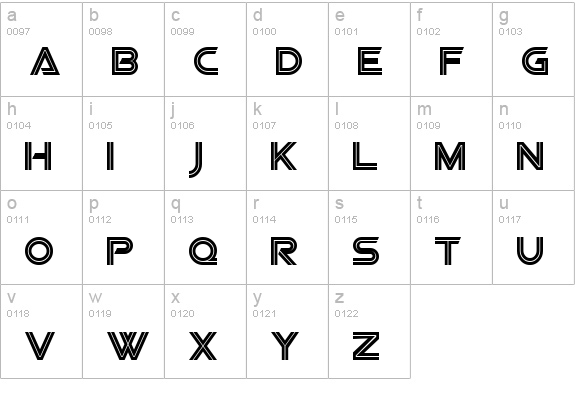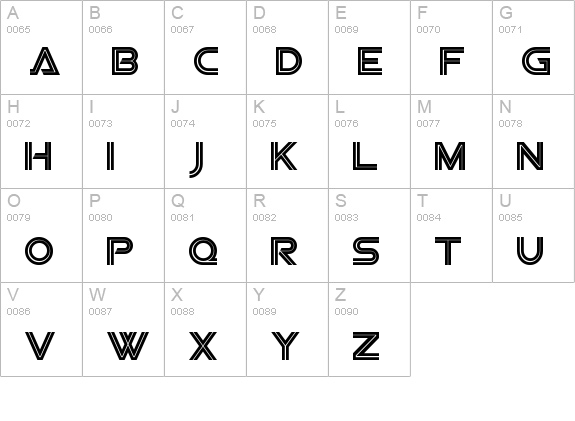
Viper Squadron Font Details
Introducing Viper Squadron, a captivating and bold font that is sure to make your designs stand out from the crowd. This versatile typeface embodies the spirit of adventurousness and strength, perfect for projects that require a touch of courage and daring. With its sharp edges and distinct letterforms, Viper Squadron exudes a sense of power and intensity. Its sleek and modern design effortlessly captures attention, making it an ideal choice for headlines, logos, banners, and more. Whether you're creating a logo for a military-themed brand or designing a poster for an action-packed event, Viper Squadron will add an element of excitement and sophistication. One of the best features of Viper Squadron is that it is freely available to download at FontsMarket.com. This means that you can easily access and utilize this striking font in your projects without any restrictions. Say goodbye to the hassle of searching for the perfect font, as Viper Squadron is just a click away. Designed with utmost precision and attention to detail, Viper Squadron offers a wide range of uppercase and lowercase letters, numerals, punctuation marks, and special characters. This extensive character set ensures that you have all the tools you need to bring your creative visions to life, no matter the project or medium. Whether you're a professional graphic designer or an aspiring creative enthusiast, Viper Squadron is a font that will undoubtedly elevate your designs to new heights. So unleash your creativity, download Viper Squadron for free at FontsMarket.com, and embark on a thrilling typographic journey that will leave a lasting impression.